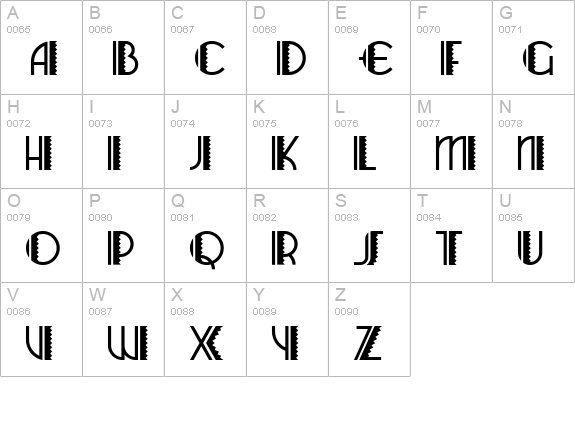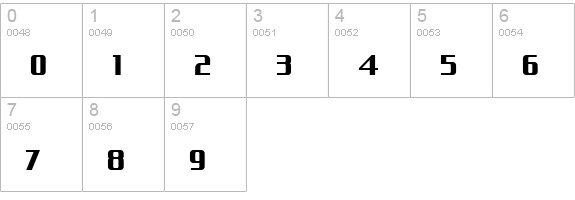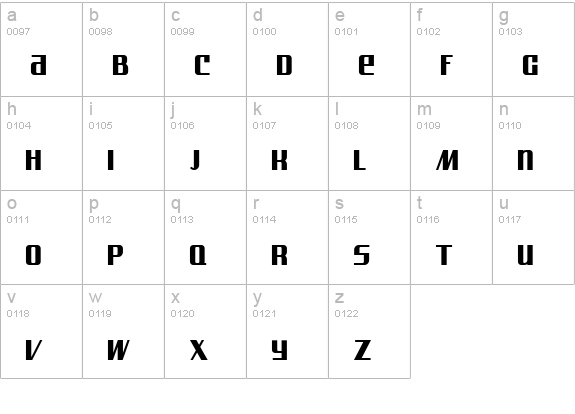
Introducing ArizonaAirwaysNF font - a sleek and modern typeface that exudes sophistication and style. Its clean lines and elegant curves make it perfect for a wide range of design projects, from logos to branding to editorial design. What sets ArizonaAirwaysNF font apart is not only its stunning aesthetics but also the fact that it is completely free to use. That's right - you can download this beautiful font at FontsMarket.com at no cost at all. With ArizonaAirwaysNF font, you can elevate your designs and make a lasting impression without breaking the bank. So why wait? Download this versatile and eye-catching font today and take your projects to the next level.